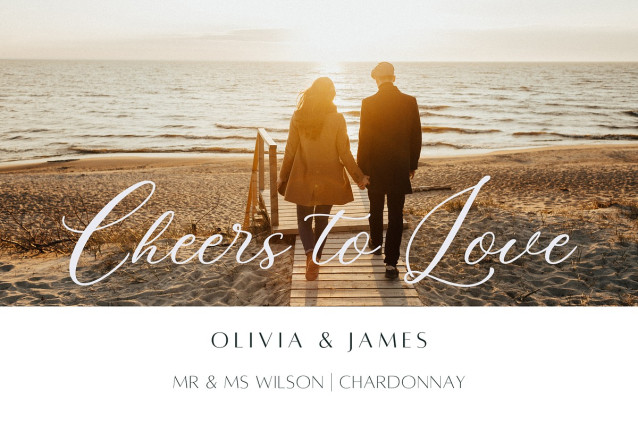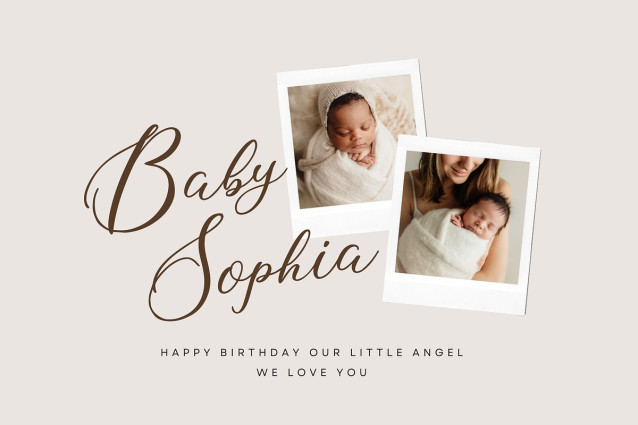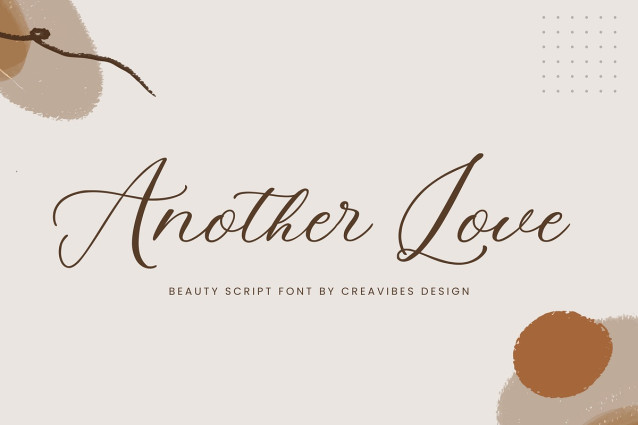
Another Love Font
Another Love Font – Beautiful Script Font, this font is perfect for branding, invitation, stationery, wedding designs, social media posts, advertisements, product packaging, product designs, label, photography, watermark, special events, and more.